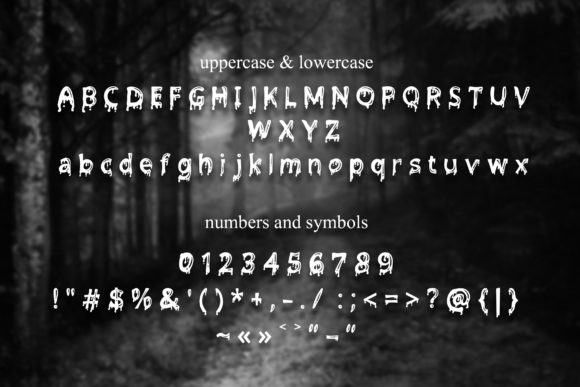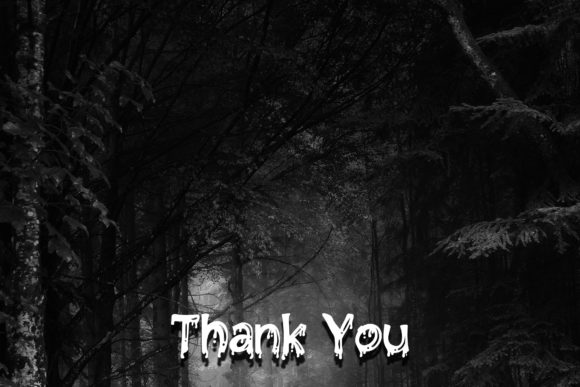
Unleash the Horror with Black Bloods Font: The Ultimate Display Font for Creepy Crafts
Are you a designer, crafter, or horror movie enthusiast looking for a font that will make your creations stand out from the rest? Look no further than Black Bloods Font, a cool and creepy display font that’s perfect for adding a touch of horror to your Halloween crafts, movie posters, t-shirts, and more.
The Perfect Font for Horror and Halloween Themes
Black Bloods Font is a unique and terrifyingly cool font that’s designed to send chills down the spine. Its bold, dripping letters are perfect for creating eye-catching titles and headings that will grab attention and leave a lasting impression. Whether you’re creating a spooky Halloween decoration, a horror movie poster, or a creepy t-shirt design, Black Bloods Font is the perfect choice.
Key Features of Black Bloods Font
- Creepy and Cool Design: Black Bloods Font features a bold, dripping design that’s sure to send chills down the spine.
- Perfect for Horror and Halloween Themes: This font is designed specifically for horror and Halloween-themed projects, making it a must-have for designers and crafters.
- High-Quality Design: Black Bloods Font is designed with high-quality, scalable vectors that ensure crisp and clear text at any size.
- Easily Customizable: This font is easy to customize, allowing you to adjust the size, color, and style to fit your project’s needs.
Uses for Black Bloods Font
Black Bloods Font is a versatile font that can be used in a variety of projects, including:
- Halloween Crafts: Add a touch of horror to your Halloween decorations, cards, and gifts with Black Bloods Font.
- Horror Movie Posters: Create eye-catching movie posters that will grab attention and leave a lasting impression.
- T-Shirts and Apparel: Design creepy t-shirts, hoodies, and other apparel that will make a statement.
- Social Media Graphics: Add a touch of horror to your social media graphics, including Facebook posts, Instagram stories, and more.
Tips for Using Black Bloods Font
Here are some tips for getting the most out of Black Bloods Font:
- Use it Sparingly: Black Bloods Font is a bold font that’s best used sparingly. Use it for headings and titles, and pair it with a simpler font for body text.
- Experiment with Colors: Black Bloods Font looks great in a variety of colors, including red, black, and purple. Experiment with different colors to find the one that works best for your project.
- Pair it with Other Fonts: Black Bloods Font pairs well with a variety of other fonts, including sans-serif fonts and script fonts. Experiment with different pairings to find the one that works best for your project.
Black Bloods Font is a cool and creepy display font that’s perfect for adding a touch of horror to your Halloween crafts, movie posters, t-shirts, and more. With its bold, dripping design and high-quality vectors, this font is sure to make your projects stand out from the rest. So why wait? Download Black Bloods Font today and unleash the horror in your designs!